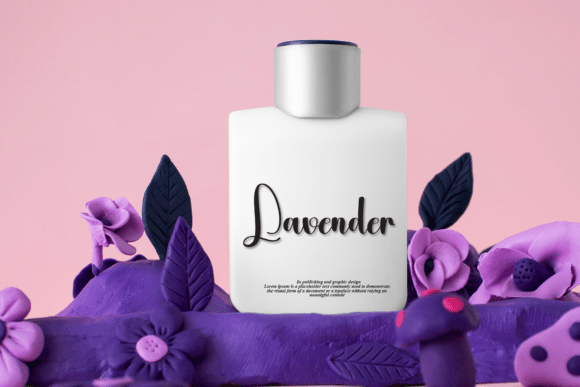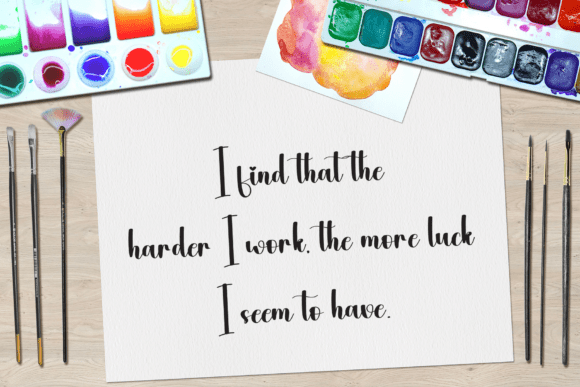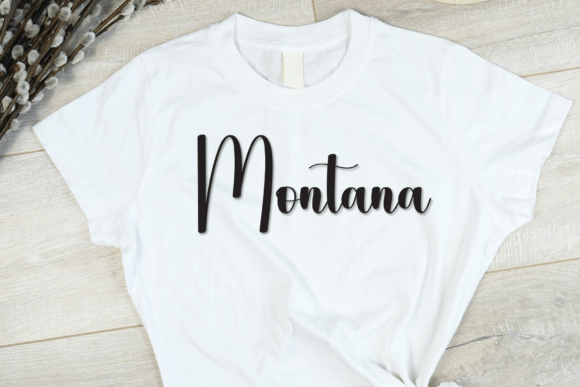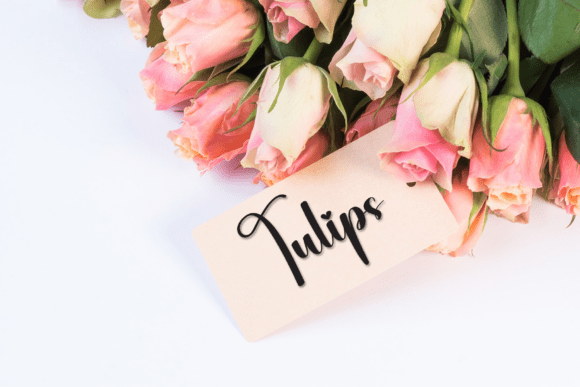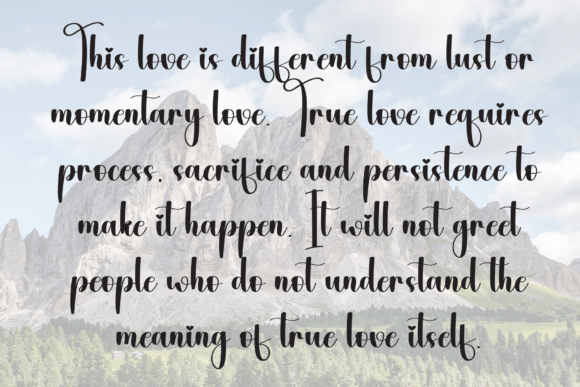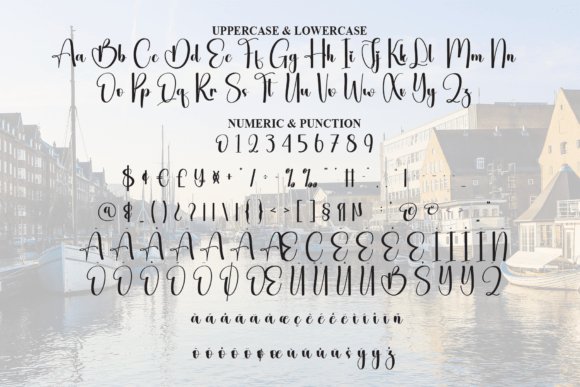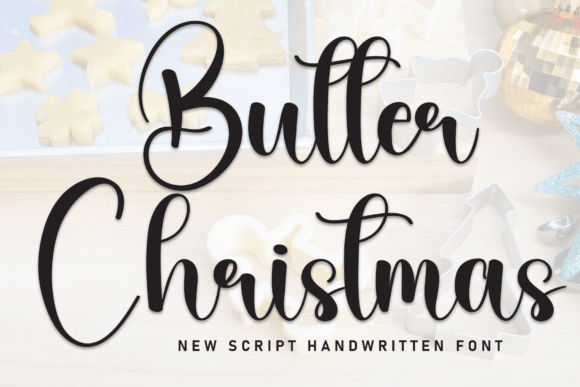
There’s nothing quite like the feeling of creating something that brings a smile to someone’s face. Whether it’s a custom illustration, a heartfelt message, or a perfectly crafted design, the right font can make all the difference. For designers, the quest for the perfect font is an ongoing one, and that’s where the charming Amsterdam Font comes in.
This delightful handwritten display font is the perfect addition to any design project that needs a light-hearted, joyful touch. With its adorable and cheerful aesthetic, Amsterdam Font is sure to add a playful charm to your designs, making it perfect for crafting whimsical wedding invitations, heartfelt sentiment cards, or any other project that requires a dash of personality.
Amsterdam Font Key Features
- Size: Amsterdam Font comes in 4 weights (Light, Regular, Medium, Bold) and 2 styles (Italic and Roman), offering a range of options for various design needs.
- Unique Characteristics: Amsterdam Font features a distinctive, modern design with a subtle flair, making it suitable for a variety of applications, including branding, advertising, and editorial design.
Amsterdam Font Review
As a designer, I was excited to try out the Amsterdam Font, and I must say it has its pros and cons. ✨
- The Amsterdam Font has a unique, modern feel to it, making it perfect for contemporary designs.
- The font’s rounded edges and soft curves create a friendly and approachable atmosphere.
- The Amsterdam Font is highly legible, making it suitable for body text, titles, and even signage.
- ⚠️ The font’s high contrast ratio can make it difficult to read in certain lighting conditions.
- ⚠️ The Amsterdam Font may not be the best choice for small text sizes due to its rounded edges.
- ⚠️ The font lacks a clear distinction between regular and bold weights, which can make it difficult to create a clear hierarchy in designs.
Overall, I think the Amsterdam Font is a solid choice for modern designs. While it has some limitations, its unique feel and high legibility make it a great addition to any designer’s toolkit. With a little experimentation and adjustment, I’m sure you’ll be able to create stunning designs with the Amsterdam Font.
Tips for Getting the Most Out of the Amsterdam Font
Use the Amsterdam Font for titles, headings, and body text to create a consistent and visually appealing design. You can also use it to add a touch of elegance and sophistication to your designs. Experiment with different font sizes and styles to create a unique and eye-catching look.